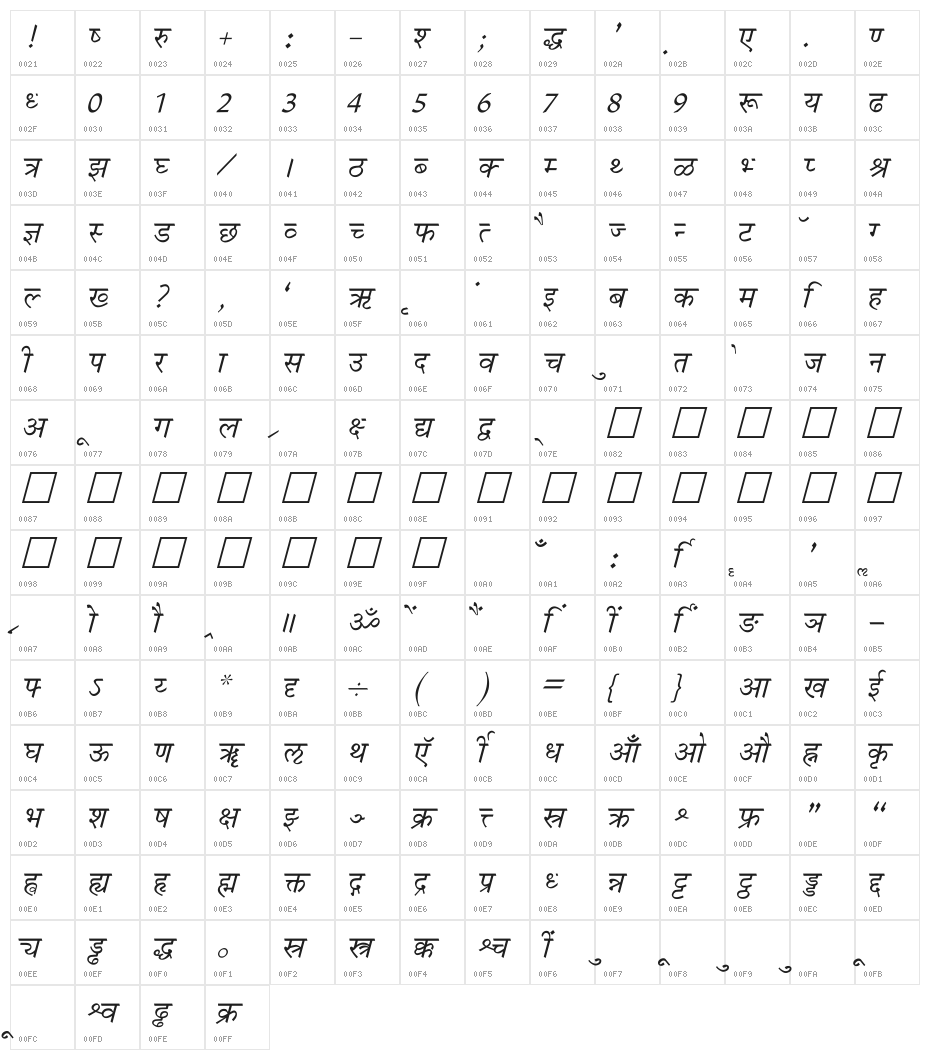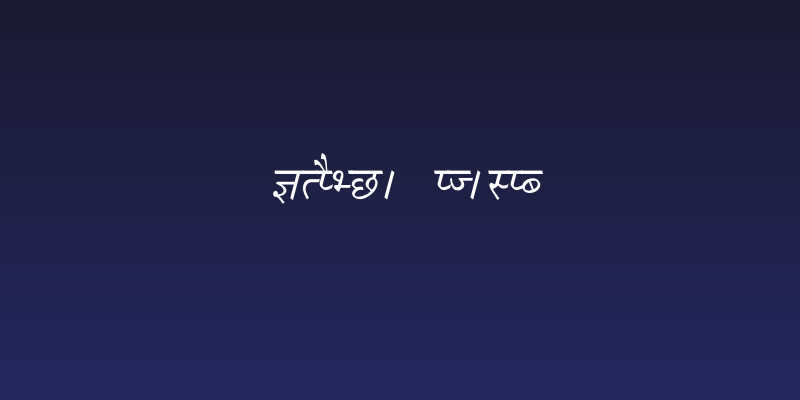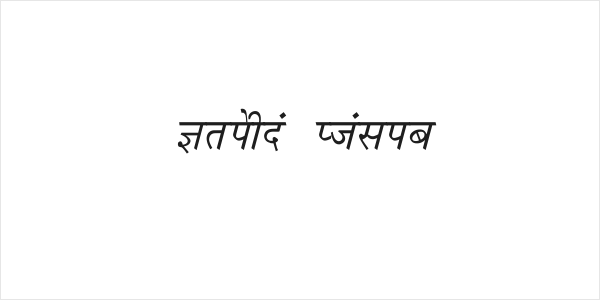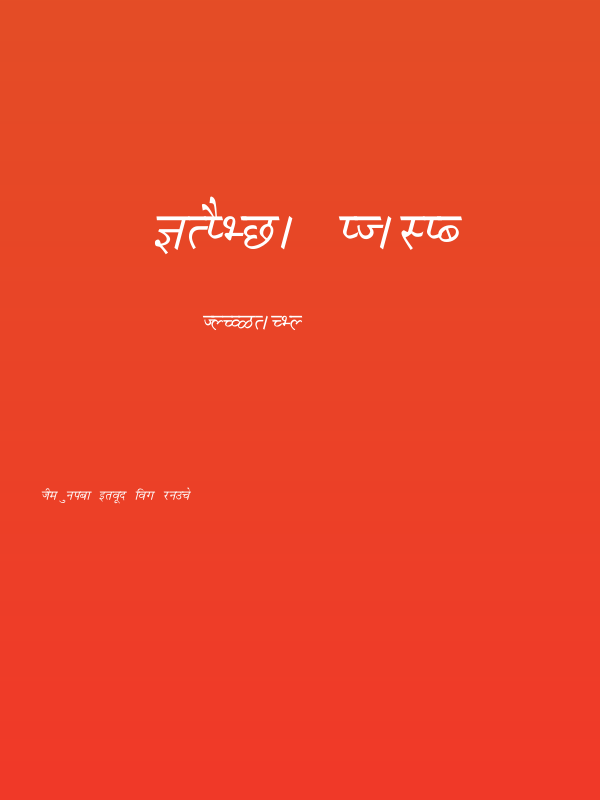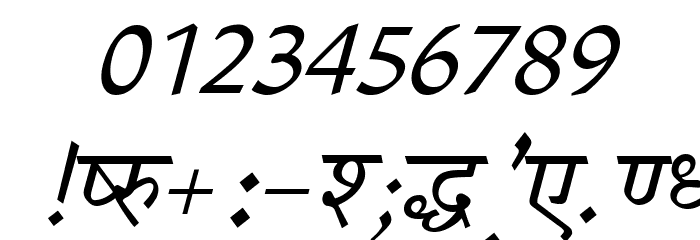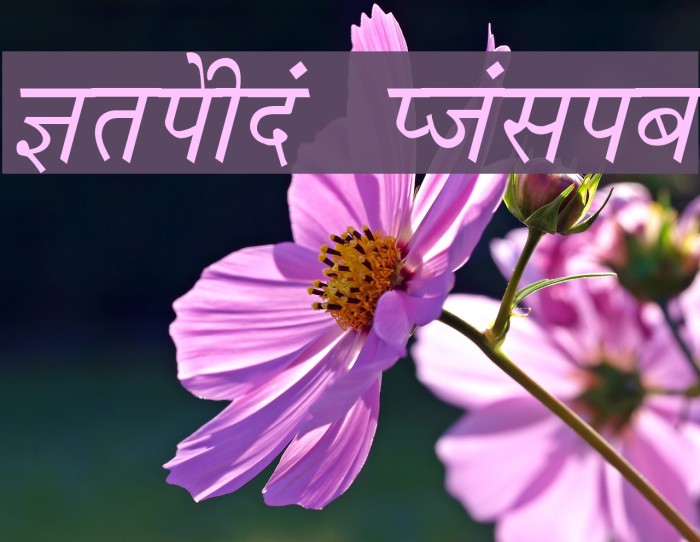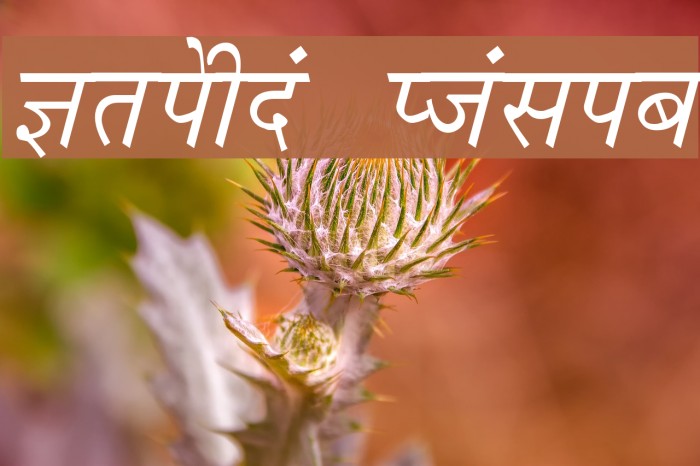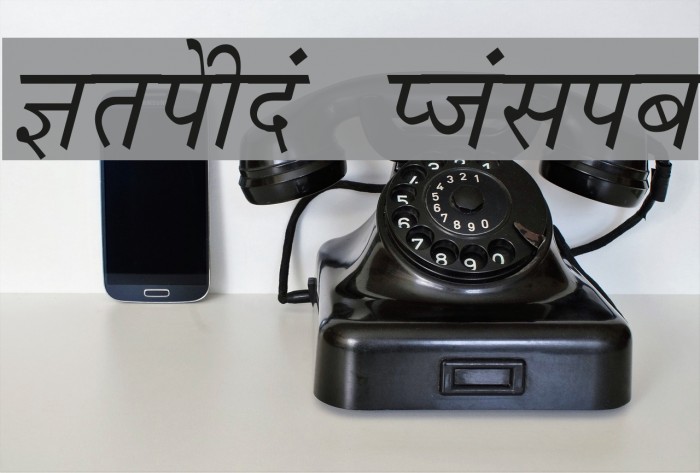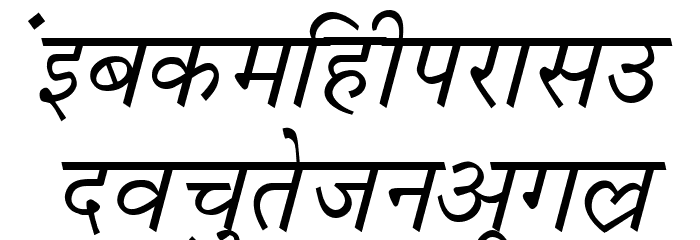
Krishna Italic Font
Krishna Italic Description
This font is a beautifully crafted Devanagari script with an italic style, offering a dynamic and elegant appearance. The characters are slightly slanted, giving a sense of motion and fluidity. The strokes are moderately thick, providing a balanced contrast that enhances readability while maintaining an artistic flair. The numerals are clear and distinct, complementing the script's overall aesthetic. The special characters are designed to match the script's flowing style, ensuring consistency across all elements. This font is ideal for projects that require a touch of sophistication and cultural authenticity.
| Overall Style | Elegant, Traditional |
| Use Case | Headlines, Artistic projects, Cultural publications |
| Proposed Projects | Ideal for cultural publications, artistic projects, invitations, and branding that require a traditional yet stylish touch. |